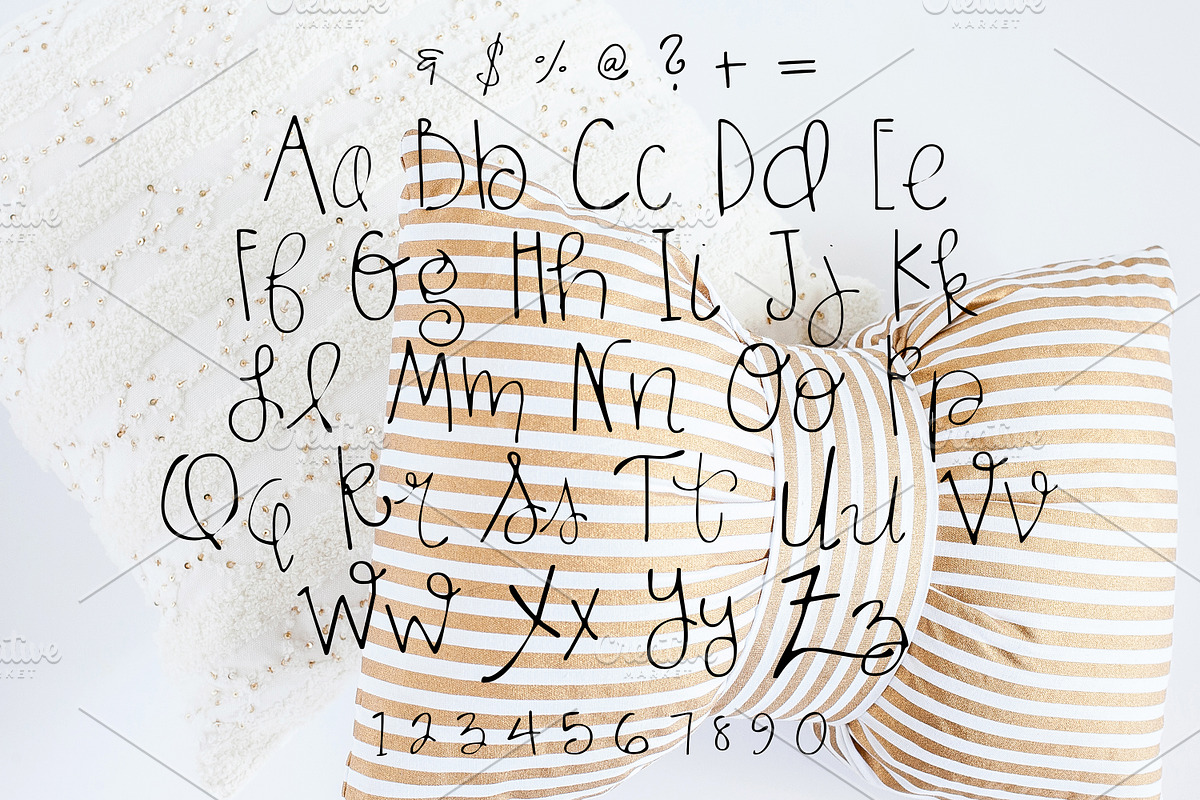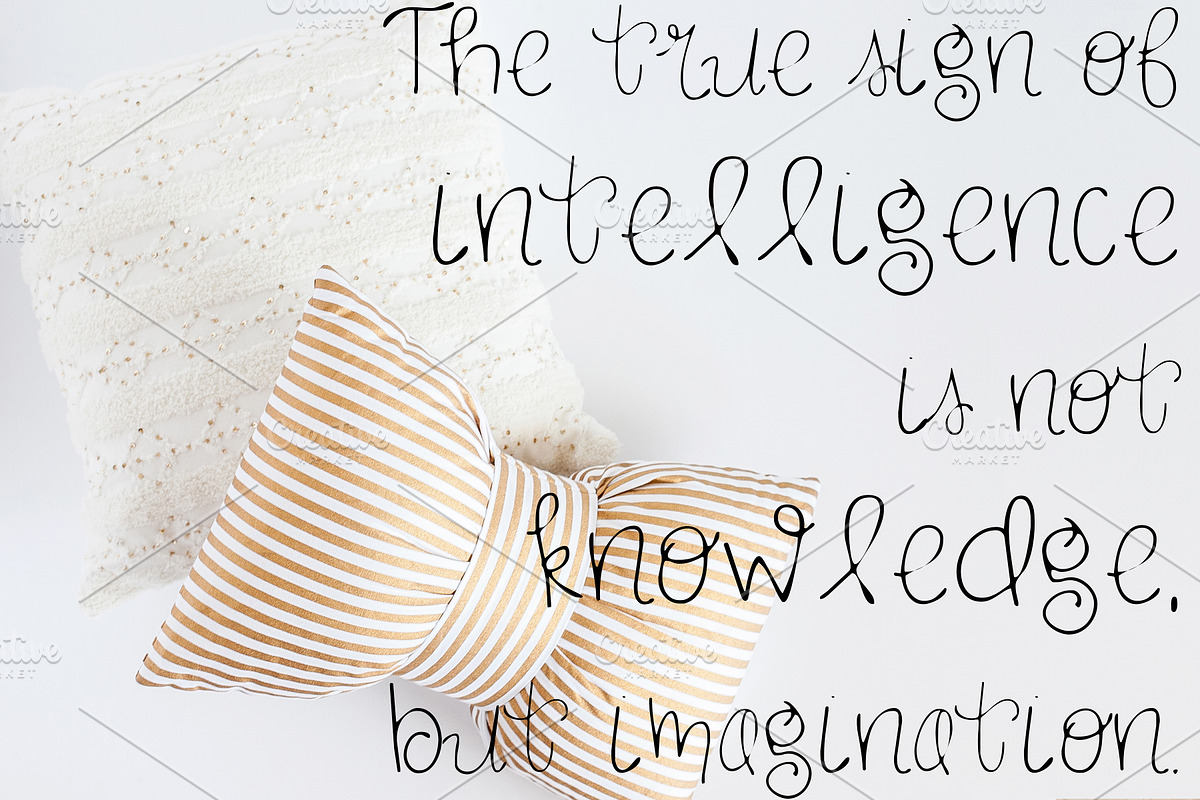
GWENA Hand Lettered Font
GWENA Hand Lettered Font by Rhonna Designs is a font selected for branding, posters, packaging, typography.
Why GWENA Hand Lettered Font is worth a look
GWENA Hand Lettered Font by Rhonna Designs fits naturally into Branding, posters, packaging, typography.